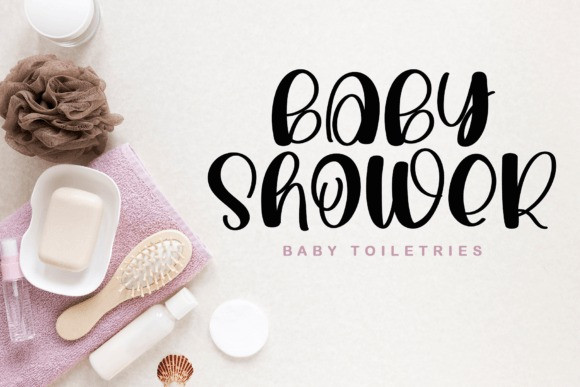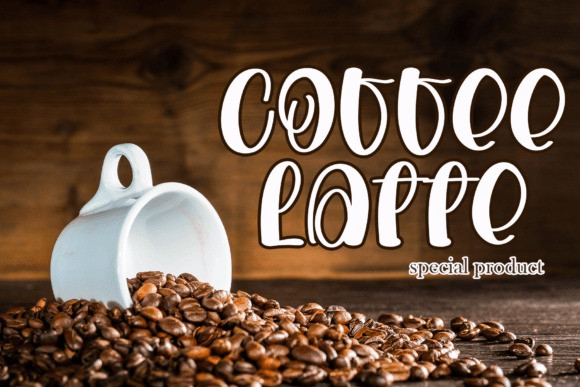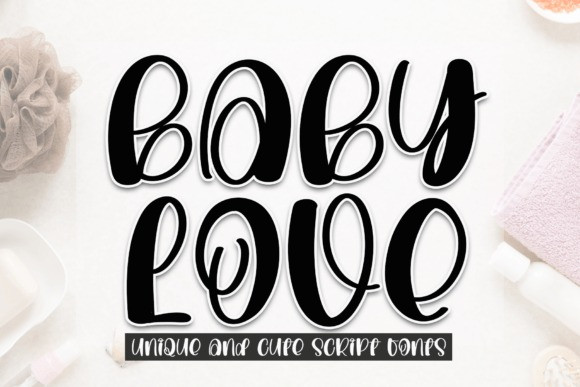
Baby Love Script Typeface
Baby Love Script Typeface is a stylish handwritten font with a contemporary atmosphere and impeccable form, inspired by timeless classic calligraphy. Balanced and varied, this font was designed to enhance the beauty of your projects